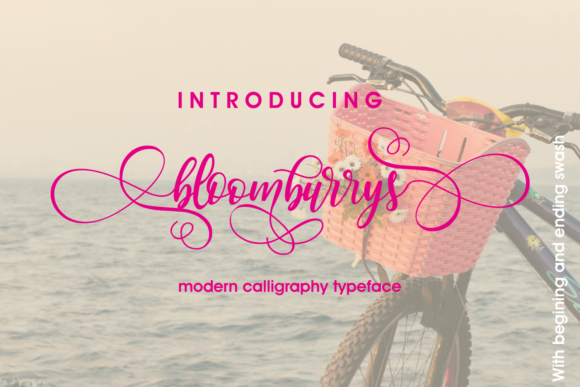
Unleash Your Creativity with Bloomburrys Font
Have you ever stared at a blank page, trying to conjure up the perfect idea, only to have it strike you like a bolt of lightning when you least expect it? For designers, those moments of inspiration are a treasure trove of creativity, and the right tools can make all the difference. That’s where Bloomburrys Font comes in – a lovely script font that adds a playful touch to any project.
Bloomburrys Font is more than just a pretty face; it’s a valuable asset for designers looking to add a touch of whimsy to their work. With its charming, dancing characters, this font is sure to make your most creative ideas stand out. Whether you’re designing a logo, a brochure, or a social media campaign, Bloomburrys Font is the perfect addition to take your design to the next level.
Bloomburrys Font Key Features
- Font Family: Bloomburrys is a unique, handwritten font family designed for creative and artistic applications.
- Unique Characteristics: Bloomburrys Font features a distinctive, hand-drawn style with intricate flourishes and subtle texture, adding a touch of elegance and sophistication to any design.
- Character Count: Bloomburrys Font includes over 500 characters, including uppercase and lowercase letters, numbers, punctuation marks, and special symbols.
Bloomburrys Font Review
Overall, I think Bloomburrys Font is a lovely addition to any design project. Here are some things that really stand out to me:
- ✨ Unique Character Set: Bloomburrys Font has a very distinctive character set that’s perfect for adding some personality to your designs. I love the quirky, hand-drawn feel of the letters.
- ✨ Versatility: Despite its unique character set, Bloomburrys Font is surprisingly versatile. It works well for both digital and print projects, and can even be used for logos and branding.
That being said, there are a few limitations to consider:
- ⚠️ Limited Language Support: Bloomburrys Font only supports a limited number of languages, which may be a problem if you need to use it for multilingual projects.
- ⚠️ Some Letters May Be Difficult to Read: A few of the letters in Bloomburrys Font can be tricky to read, especially at smaller font sizes. This may be a problem if you need to use it for body text or other large blocks of text.
Overall, I think Bloomburrys Font is a great choice for designers who want to add some personality to their projects. While it may have some limitations, it’s definitely worth considering for the right project.
Bloomburrys Font: A Practical Application Guide
Tips for Getting the Most Out of Bloomburrys Font
Here are a few tips to help you get the most out of Bloomburrys Font:
- Use it sparingly to add visual interest to your designs.
- Pair it with other fonts to create a unique and eye-catching look.
- Experiment with different font sizes and styles to find the perfect combination.
Bloomburrys Font is perfect for:
- Branding and logos.
- Food and
Alternatives to Bloomburrys Font
Great Vibes Font is a beautiful, elegant script font ideal for use in wedding invitations, greeting cards, and other creative projects. It’s perfect for adding a touch of sophistication and whimsy to your designs.
Compared to Bloomburrys Font, Great Vibes Font has a more refined and delicate feel, making it suitable for projects that require a sense of luxury and refinement.
Dancing Script Font is a playful, cursive script font that’s perfect for use in titles, headings, and other text elements that need a touch of personality. It’s ideal for creative projects such as magazines, blogs, and social media graphics.
Compared to Bloomburrys Font, Dancing Script Font has a more energetic and lively feel, making it suitable for projects that require a sense of fun and playfulness.
Is Bloomburrys Font compatible with variable font technology?
Yes, Bloomburrys Font is designed to work with variable font technology. This means that you can use the font in combination with other fonts to create a variable font that can be customized to meet your design needs. To use Bloomburrys Font with variable font technology, you will need to have a compatible font editor or design software that supports variable fonts.